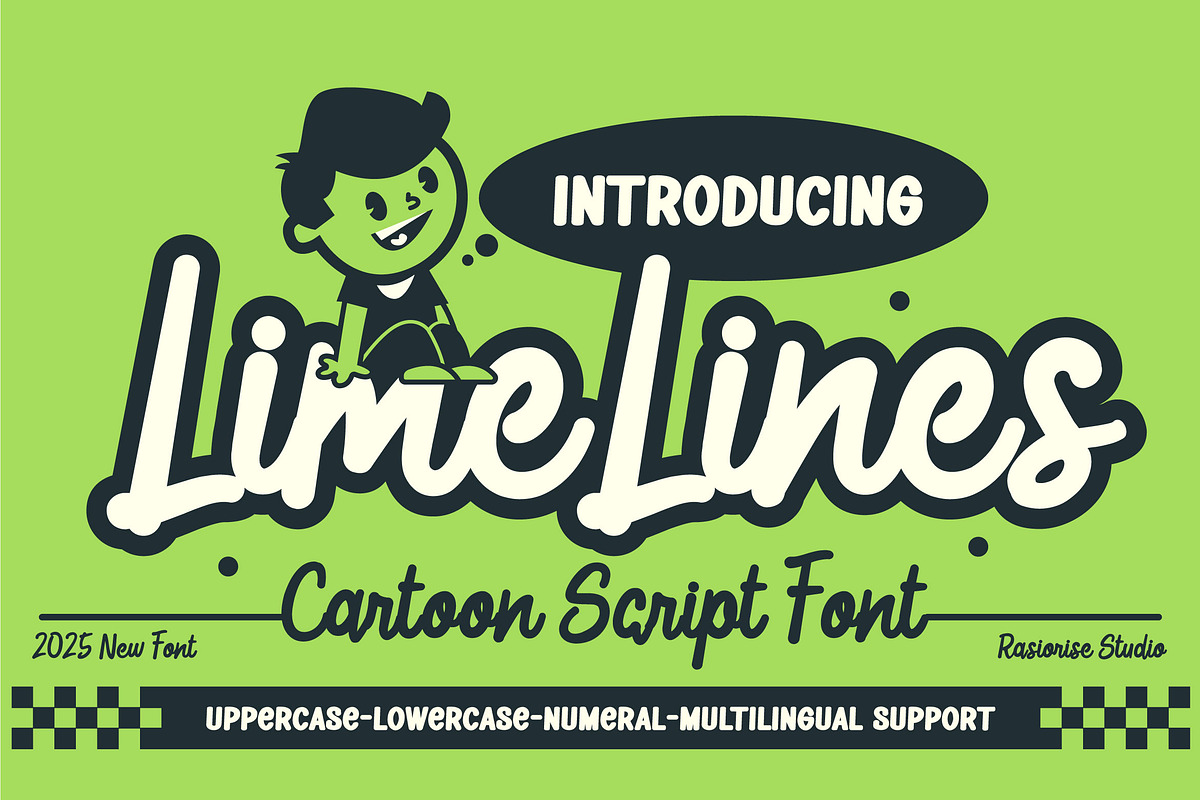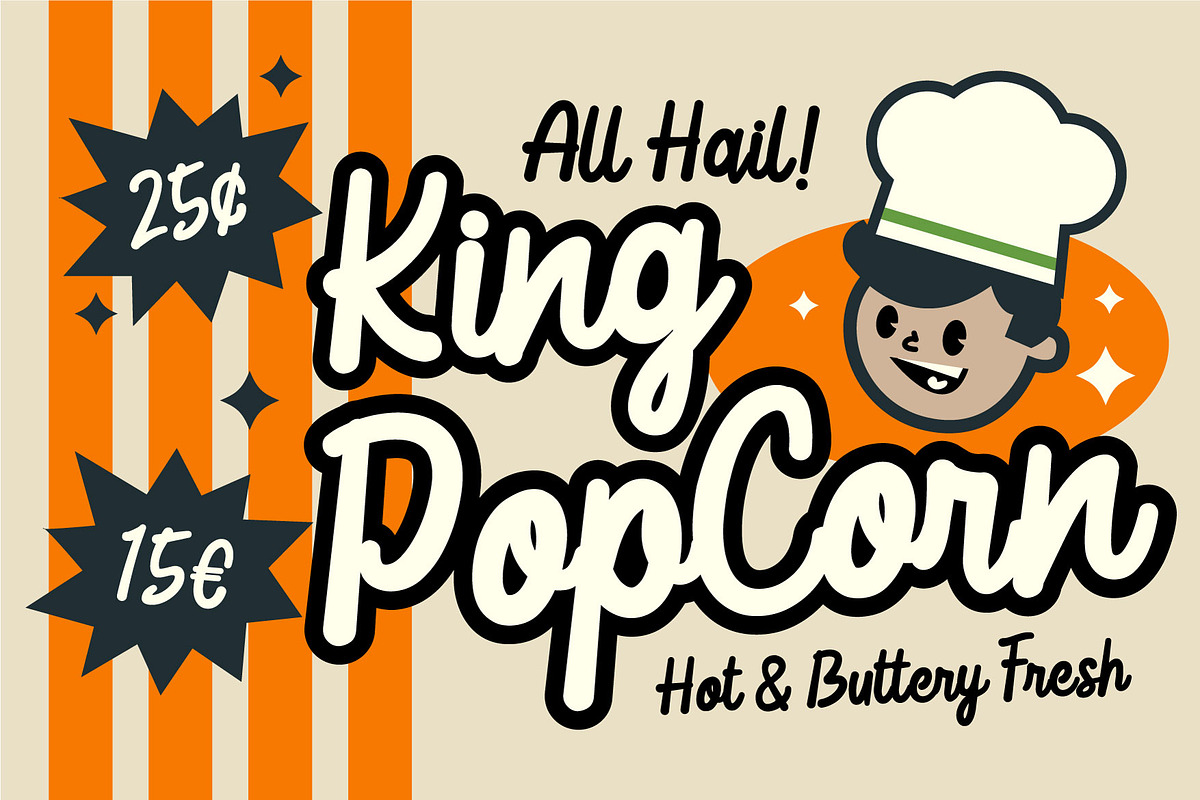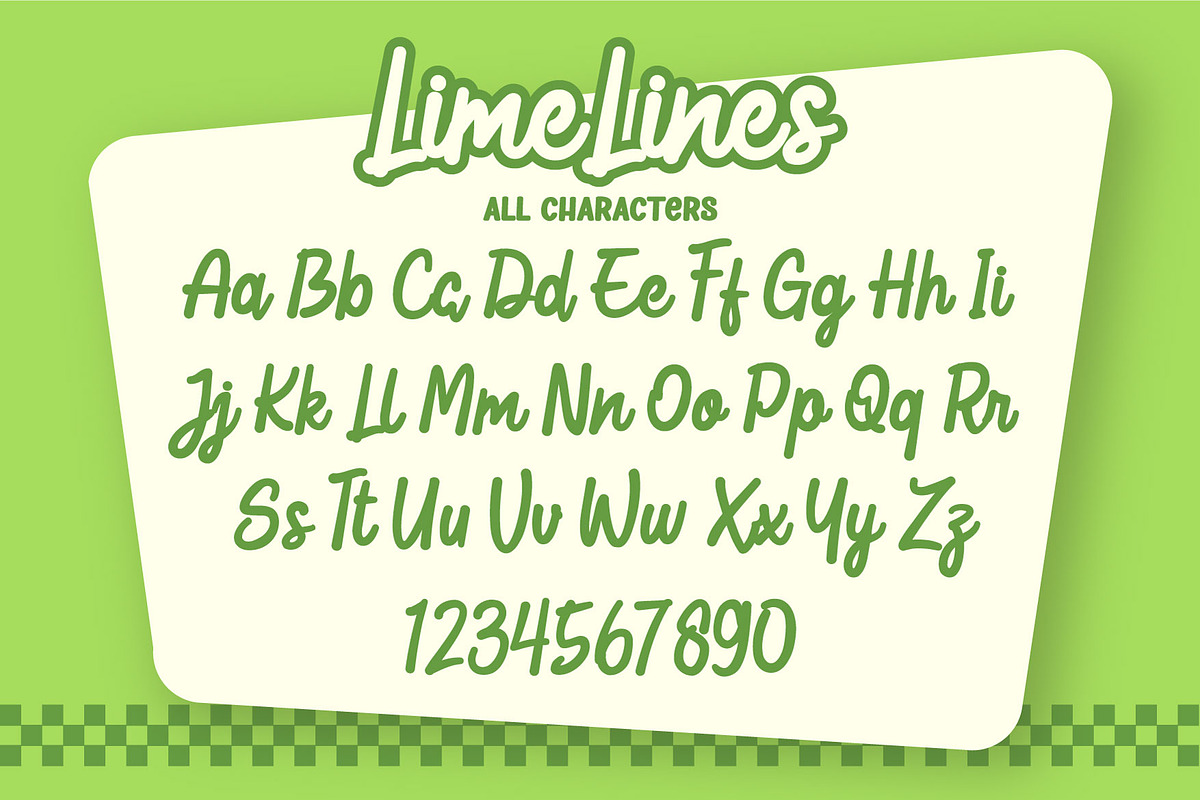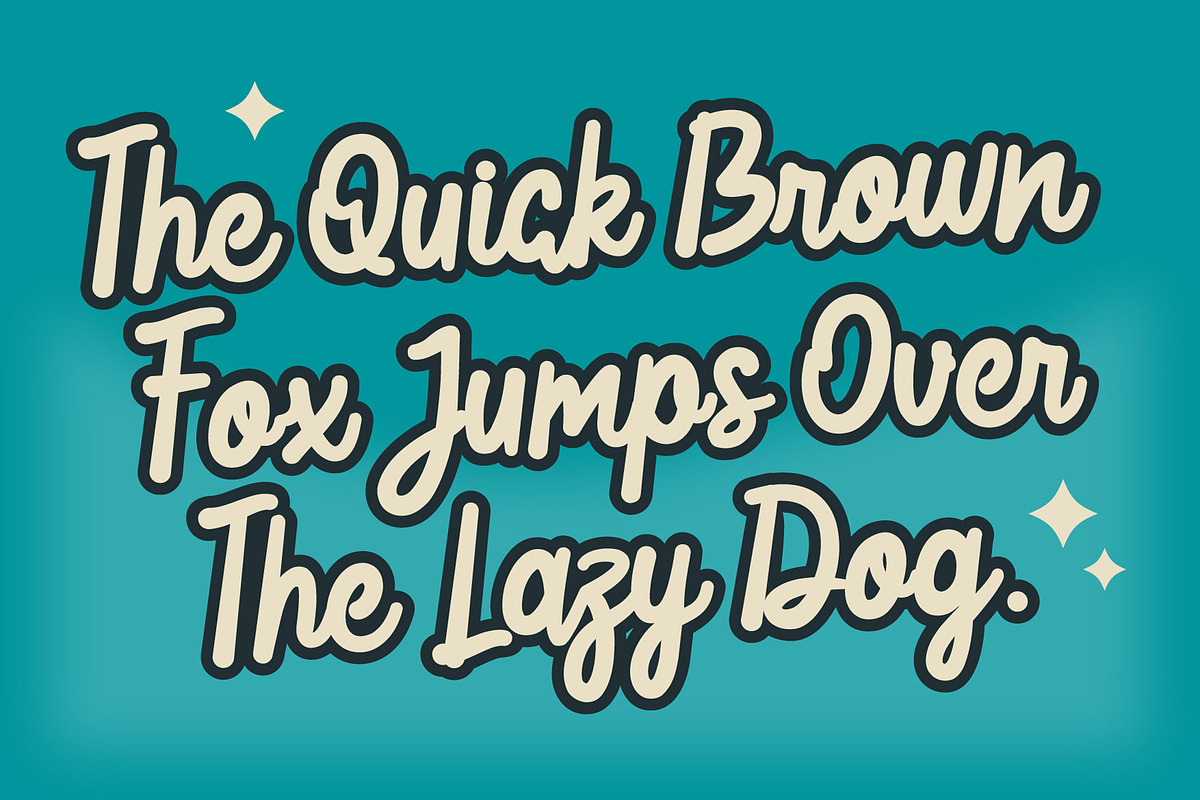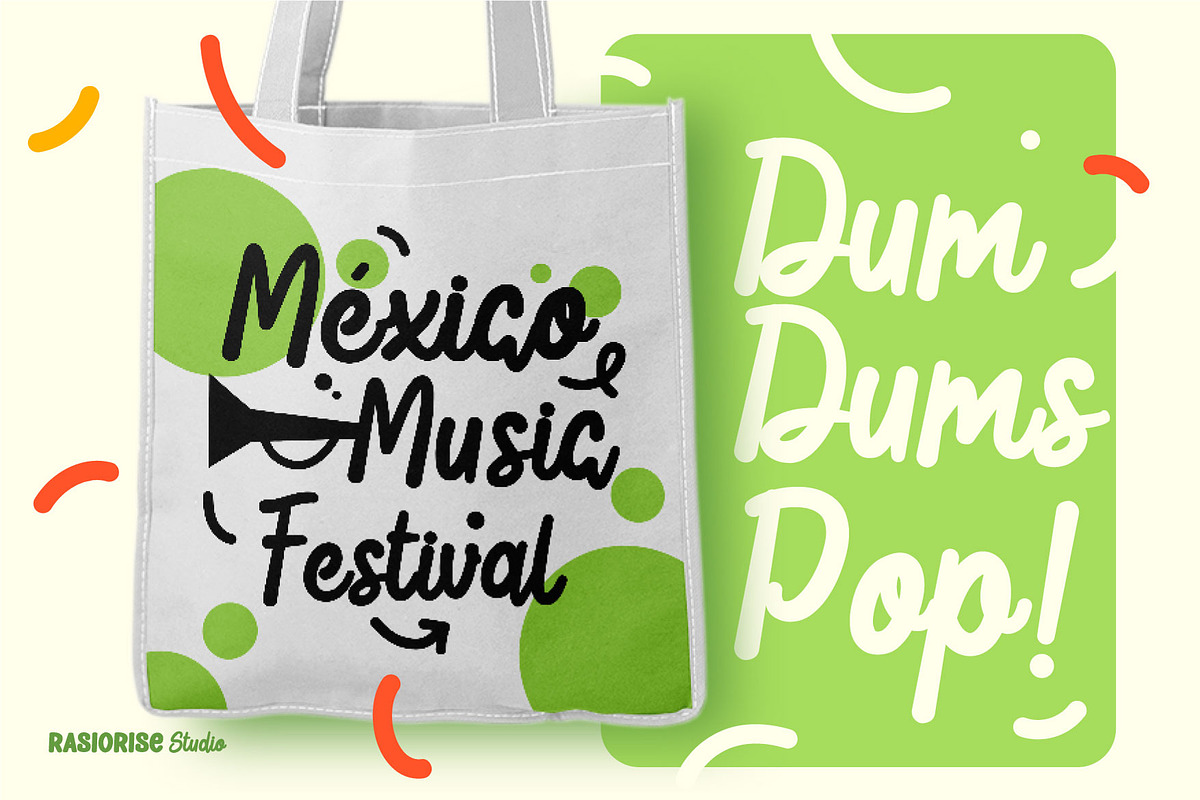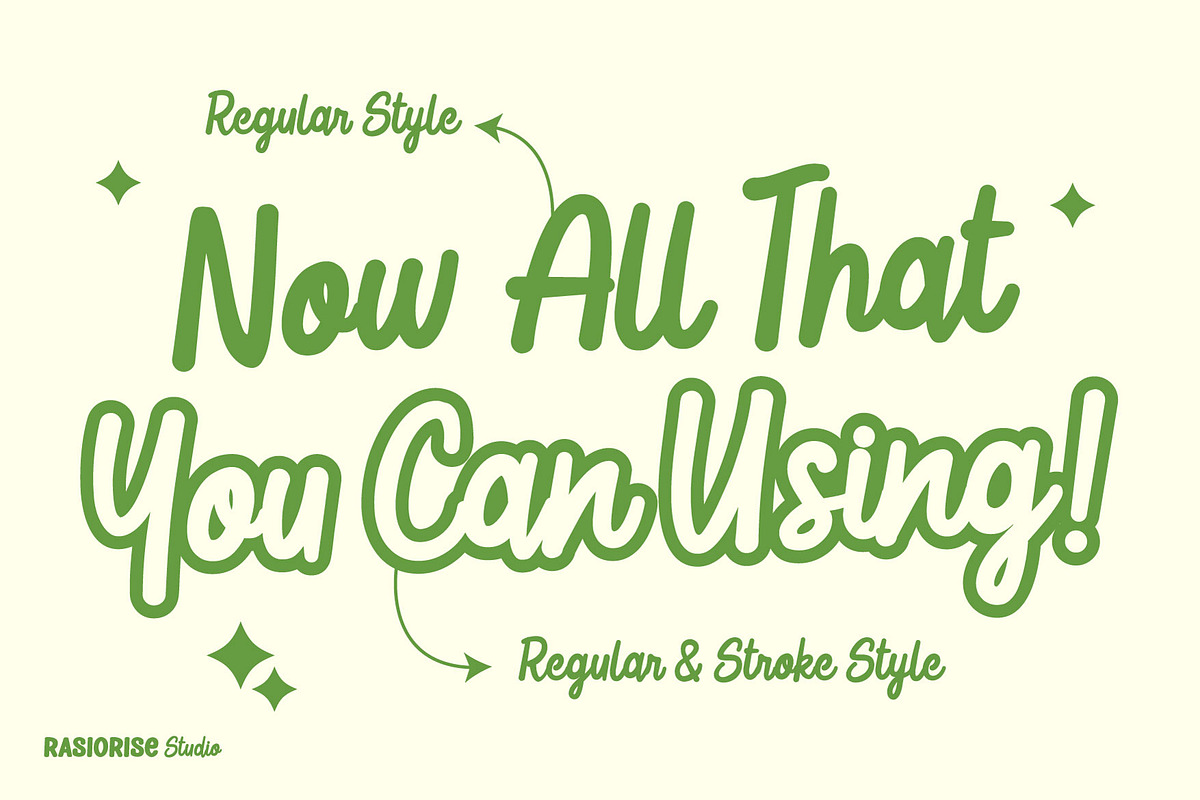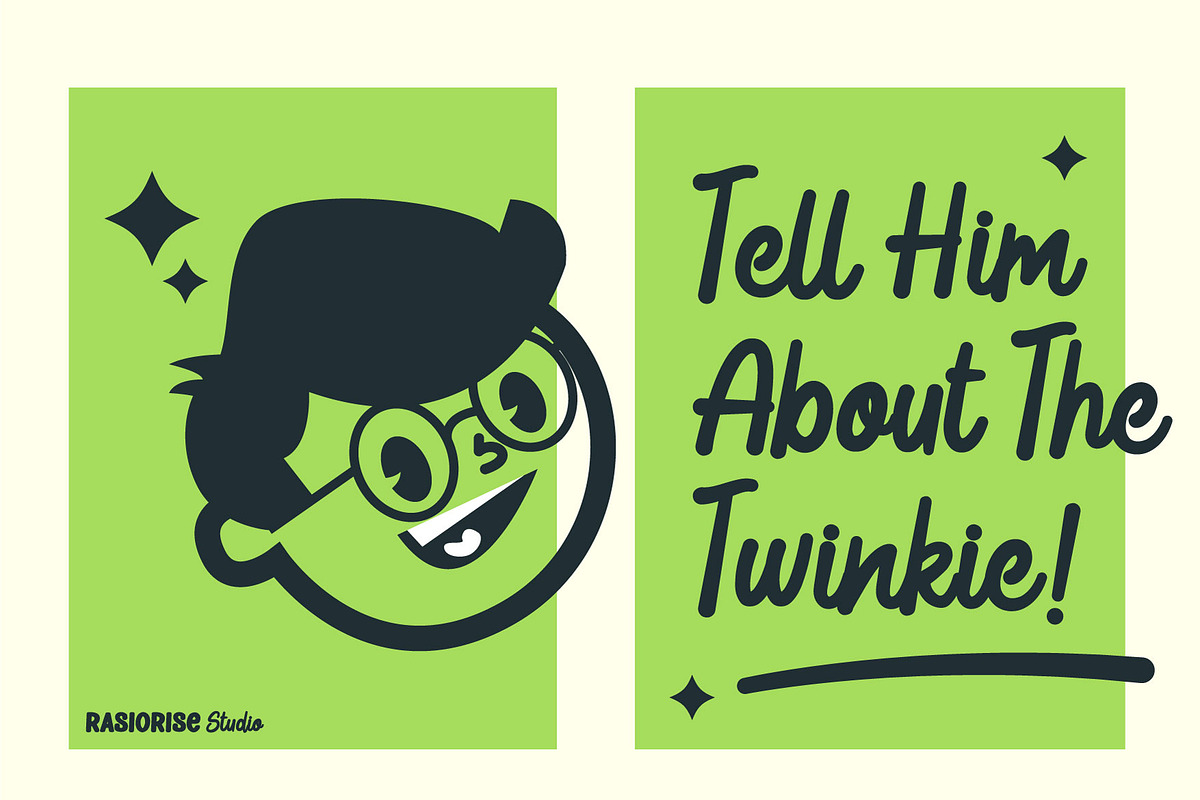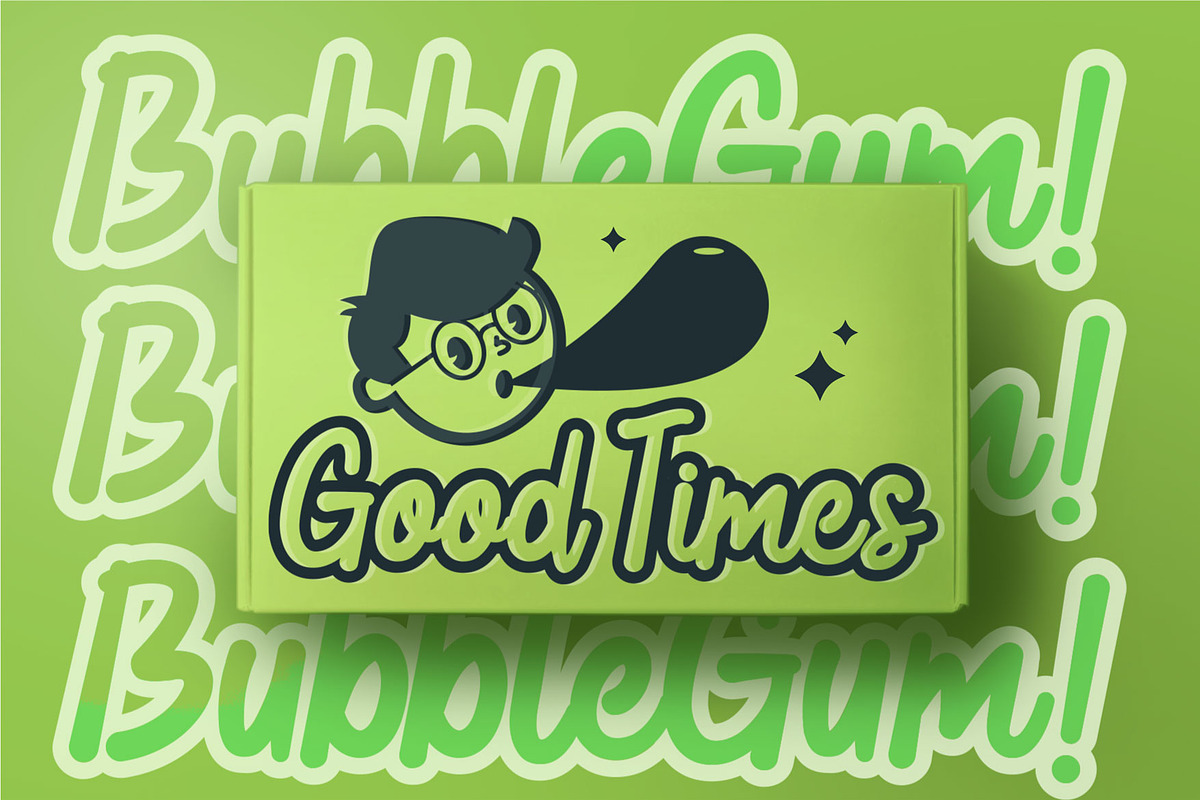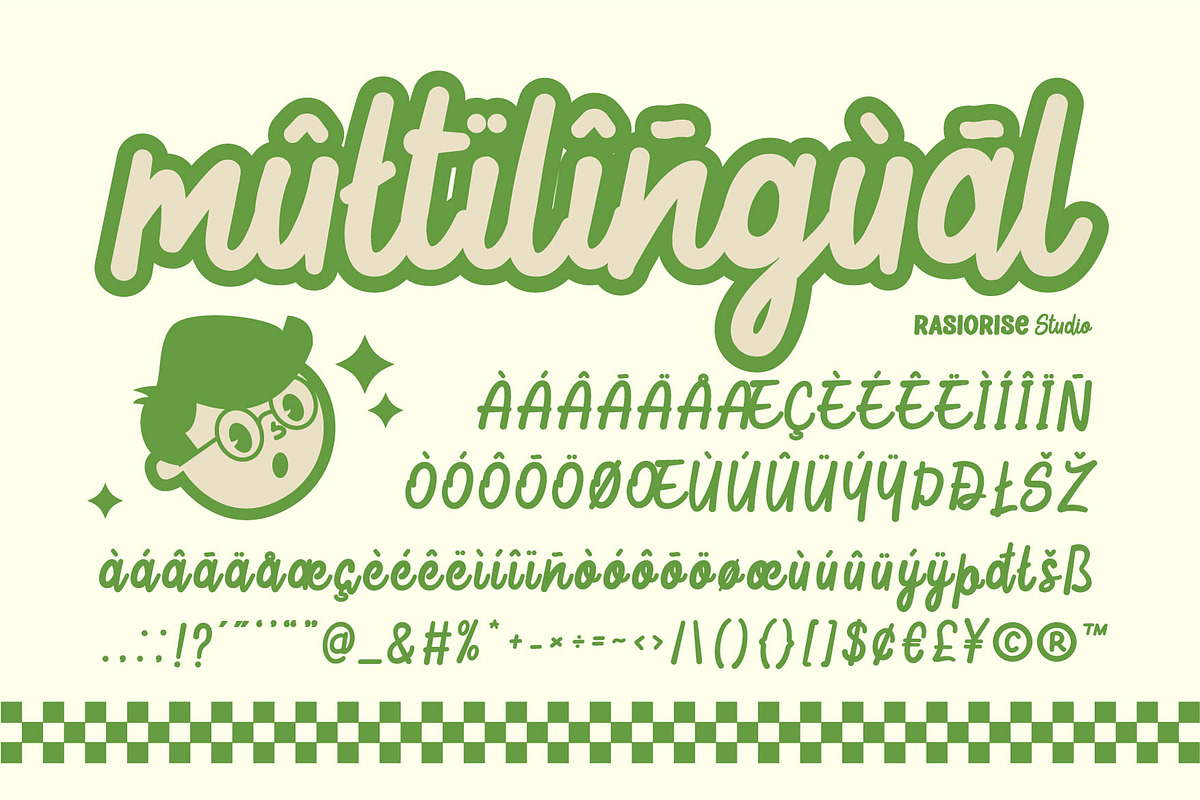
Lime Lines a Script Cartoon Font
Hello Everyone! Lime Lines Font has been released for those of you who are looking for a Script Cartoon Font. A Retro/Playful Script Font that combines the handrawn Script rounded typeface. This font is inspired by the 60s, 70s and 80s Retro Cartoon Comic, a Script font with several combinations to combine Pop and Playful styles like a Retro Cartoon Comis. With easy-to-read character font for your Retro Cartoon vibes, also you can easily create beautiful and stand-out typography and retro. Unleash your creativity with Lime Lines Font and let your retro catoon comic projects!.
Lime Lines is perfect for Logotype, Book Cover, Gift Cards, Greeting Cards, Posters, Merchandise, Packaging Labels, and more.